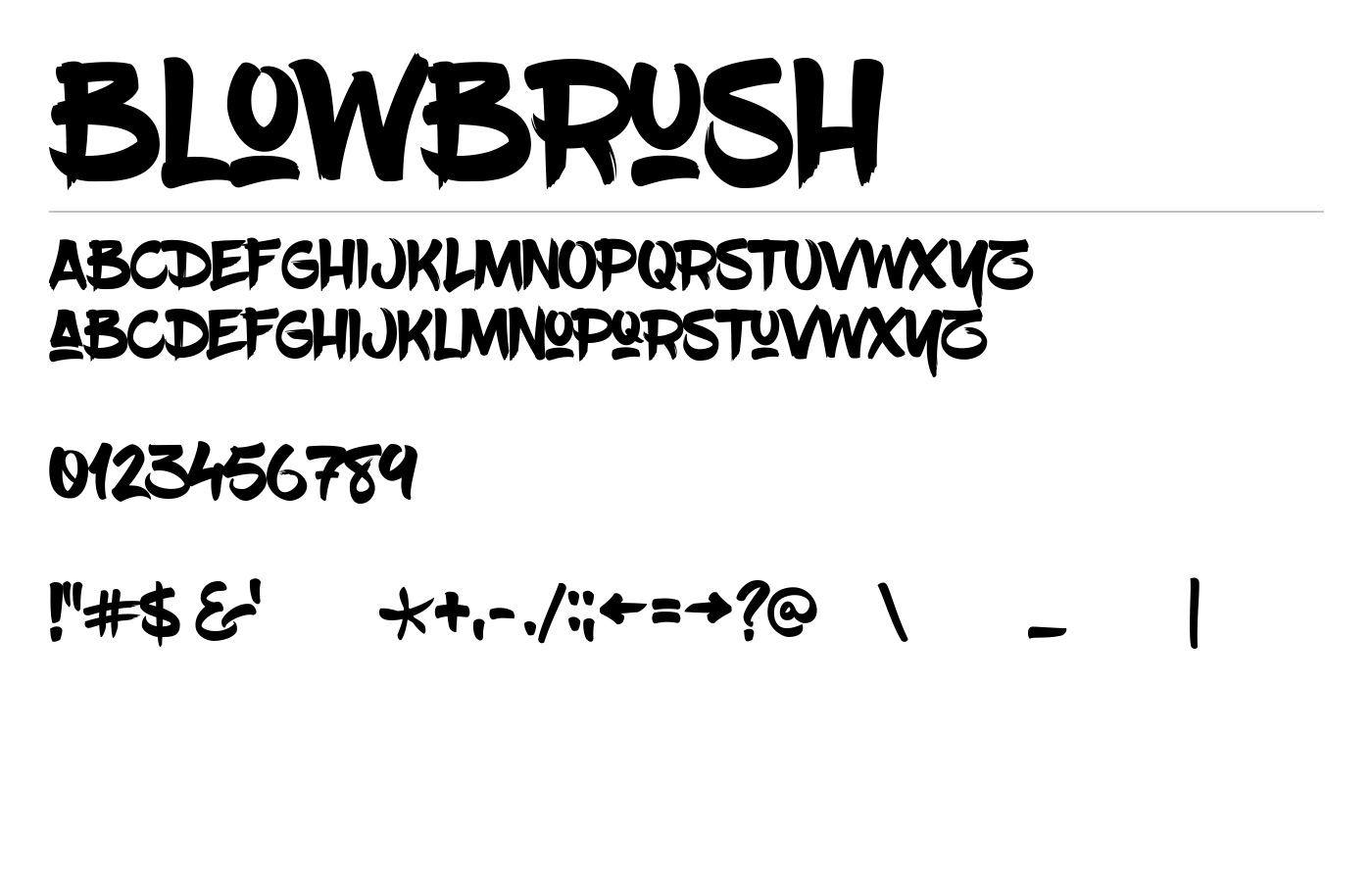
BlowBrush is a bold and expressive brush script font with a strong, urban flair that mimics hand-painted graffiti. Its thick, uneven strokes and casual, playful letterforms create a dynamic and energetic feel, making it perfect for edgy branding, street art-inspired designs, posters, and headlines that need a distinctive, rebellious personality. This font shines best where a loud, creative voice is desired to capture attention and convey a modern, artistic vibe.
BlowBrush Font
About BlowBrush Font